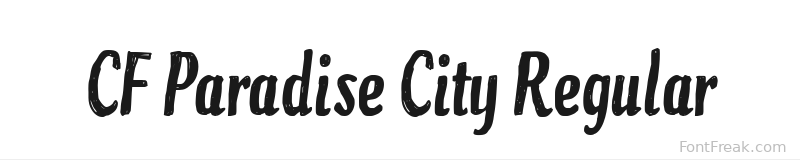
CF Paradise City Regular
CF Paradise City Regular is a striking display font that brings a unique flair to various design projects. Crafted by Cloutierfontes, this font features a bold, energetic style that captures attention with its playful character. The font showcases a distinctive stroke weight, combining thick and thin lines that create a captivating contrast. Its well-balanced letter spacing enhances readability, making it suitable for both headings and body text. The decorative elements give it a lively personality, perfect for designs that aim to evoke a sense of fun and creativity.
This font is ideal for a variety of applications. It shines in wedding invitations, where its charming aesthetic can set the tone for a joyous celebration. Additionally, it works wonderfully for movie posters, lending an eye-catching appeal that draws viewers in. Restaurant menus can also benefit from the inviting nature of CF Paradise City Regular, helping to create a friendly atmosphere. Furthermore, it is a great choice for social media graphics, allowing content creators to engage audiences with vibrant and dynamic visuals.
Targeting graphic designers, small business owners, and content creators, this font is versatile enough to complement a wide range of branding and promotional materials. Its freeware license makes it accessible for those looking to enhance their projects without financial constraints.
What sets CF Paradise City Regular apart is its ability to fuse creativity with functionality. This font not only stands out visually but also serves a practical purpose, ensuring that messages are communicated effectively. The CF Paradise City Regular font free download offers an excellent opportunity for anyone looking to elevate their design work with a touch of personality and charm.